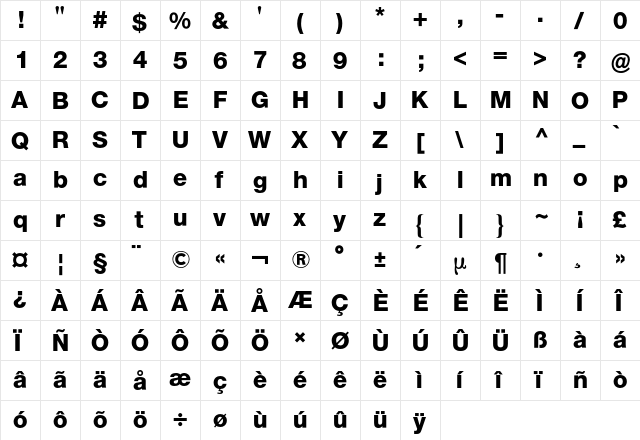
Neue Helvetica BQ Regular
Design Context for Neue Helvetica BQ Typeface
Neue Helvetica BQ offers clean, dependable letterforms without strong stylistic allegiance, making it a practical choice for designers who need flexibility.